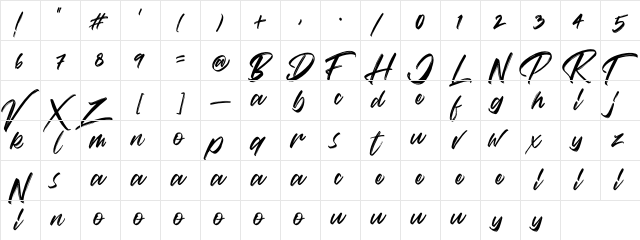
Vaughan Handstylish Font Regular
Design Context for Vaughan Handstylish Font Typeface
Vaughan Handstylish Font brings a calligraphic fluidity to the page — its connecting strokes and expressive curves give it an unmistakably human quality.
Font Pairing: Combine Vaughan Handstylish Font with a simple geometric sans for maximum contrast — the tension between flowing curves and clean structure is a classic typographic pairing.
Pro Tip: Use Vaughan Handstylish Font for short runs of text — names, titles, or taglines. Extended body copy in script faces tires the eye quickly.